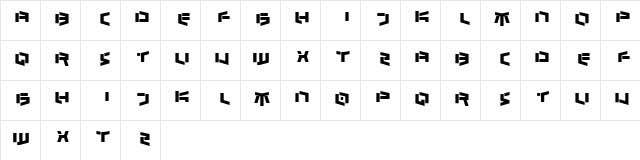
Bedlam absolute
Style: absolute
Design Context for Bedlam
Bedlam is a composed and adaptable typeface that performs quietly and consistently across a wide range of design contexts.